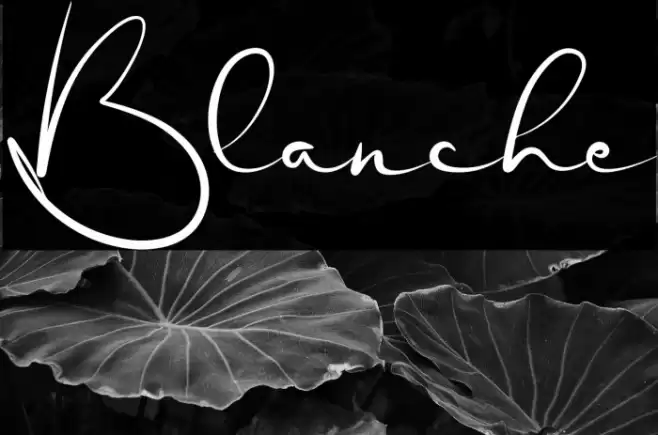
Blanche Font
Blanche Description
This font exudes elegance and sophistication with its flowing, cursive style. The uppercase letters are tall and slender, featuring graceful loops and swirls that add a touch of flair. The lowercase letters maintain a consistent fluidity, with smooth connections between each character, creating a seamless and harmonious appearance. The numerals are uniquely styled, matching the overall script aesthetic, while the special characters are thoughtfully designed to complement the alphabet. This font's delicate strokes and artistic curves make it ideal for projects that require a personal and refined touch.
An elegant and sophisticated cursive script font with flowing, artistic curves from Regular fonts.
- Proposed Projects: Ideal for wedding invitations, elegant branding, personal stationery, and artistic projects.
- Overall Style: Elegant
- Use Case: Logos, Invitations, Decorative text